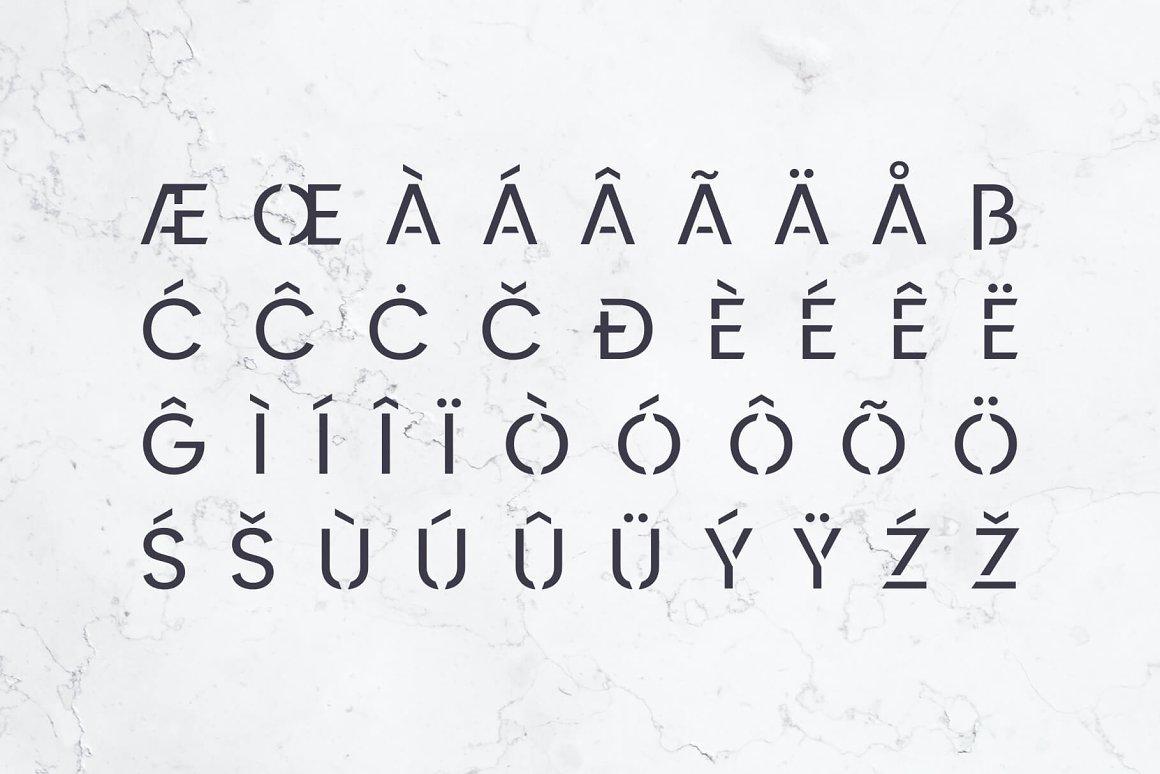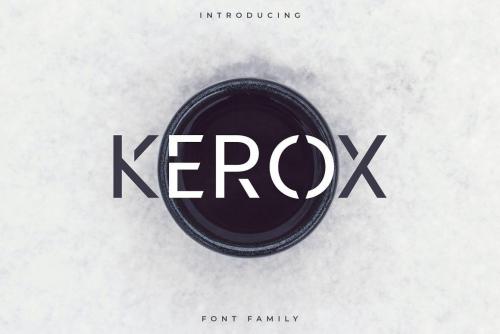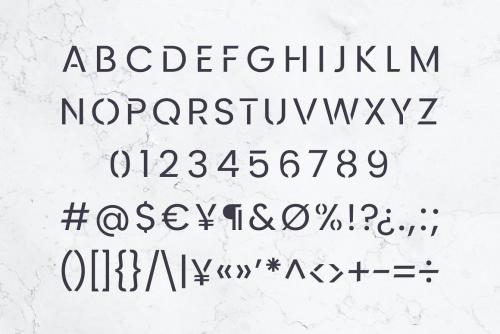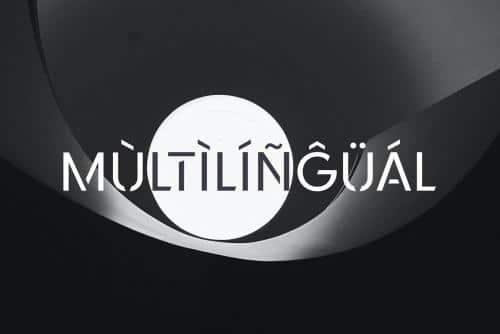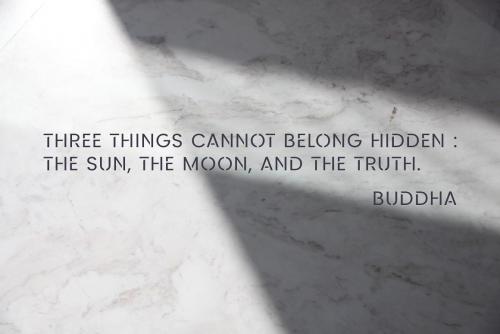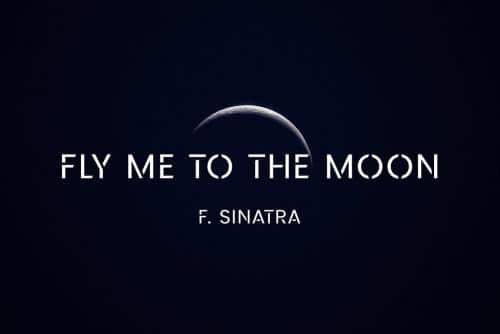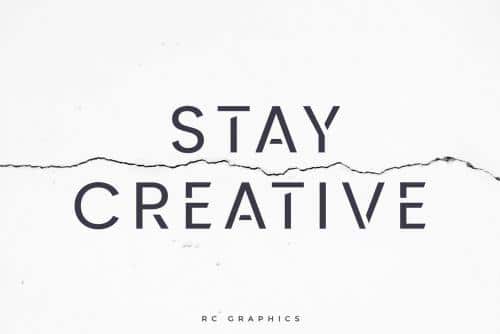
Kerox is a modern and clean sans serif font. It’s a versatile font family designed for strong, classic branding. Kerox is perfect for any branding, logos, magazines, videos, weddings, quotes, print, product packaging, website, clothing designs and much more.
- Designer: RC graphics